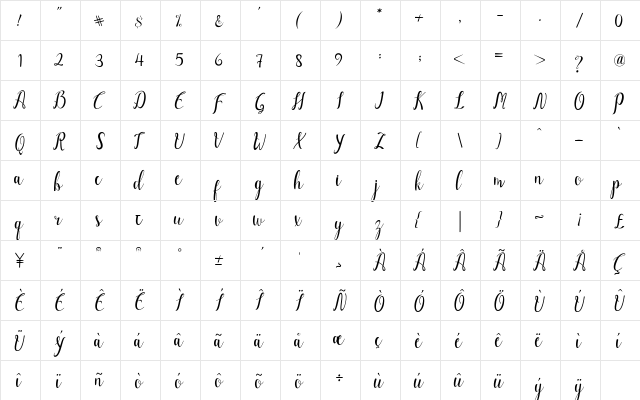
Luciana Regular
Design Context for Luciana Typeface
Luciana is a composed and adaptable typeface that performs quietly and consistently across a wide range of design contexts.